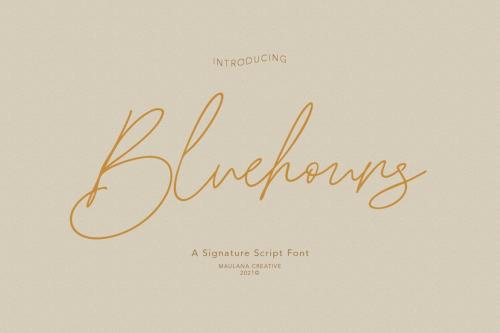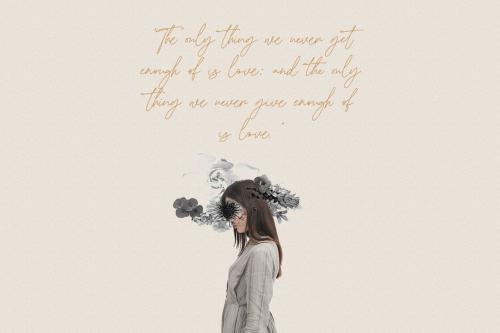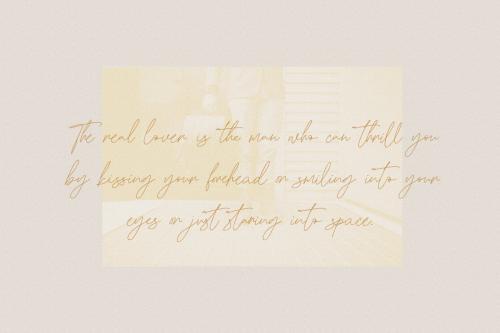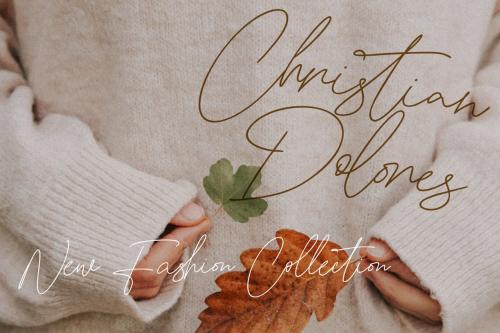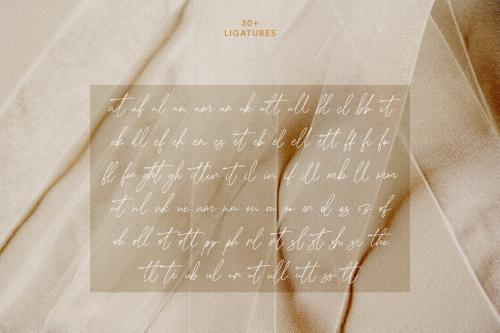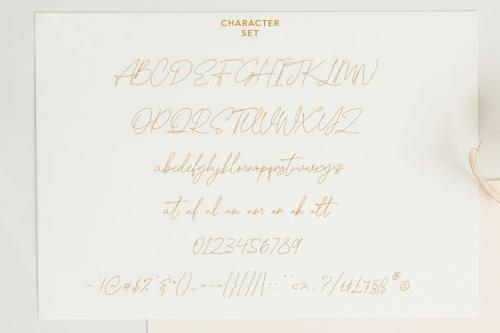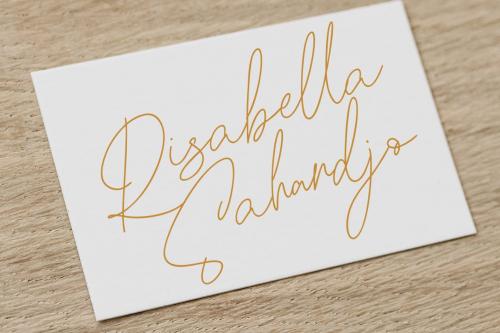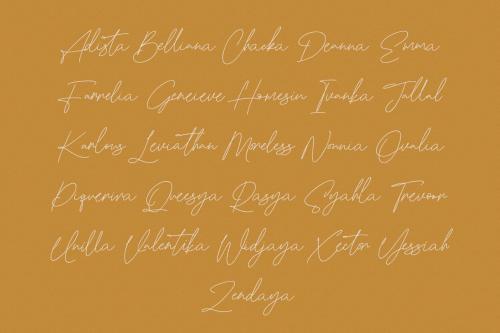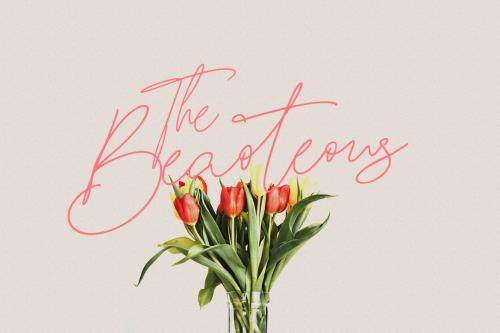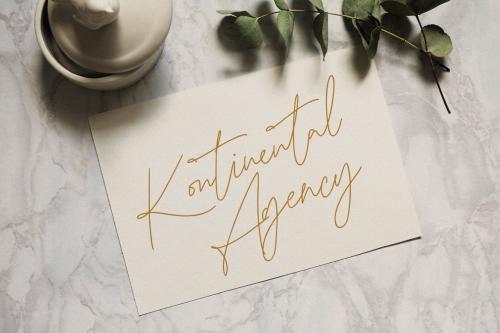
蓝小时签名字体
Bluehours Signature Font
Bluehours is signature script font, with thin mono-line stroke, super slanted and fun character. It has Opentype features ligatures of character, To give you an extra creative work. Bluehours font support multilingual more than 100+ language. This font is good for logo design, Social media, Movie Titles, Books Titles, a short text even a long text letter and good for your secondary text font with sans or serif. Make a stunning work with Bluehours font.